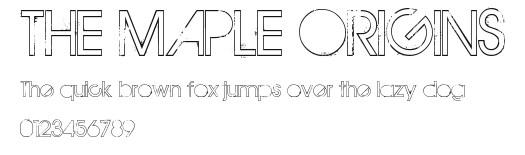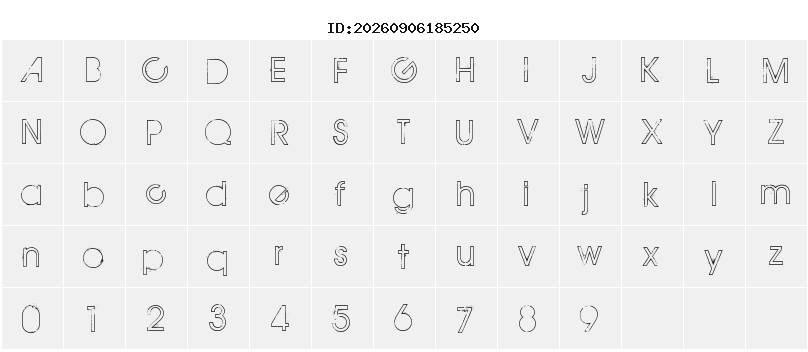
THE MAPLE ORIGINS Preview
• Font Name: THE MAPLE ORIGINS
• Full Font Name: THE MAPLE ORIGINS
• Version: Version 1.00 June 9, 2007, initial release
About THE MAPLE ORIGINS.ttf
THE MAPLE ORIGINS.ttf is a modern, elegant sans-serif font designed for ultimate readability and visual harmony. Perfect for branding, headlines, web design, and print materials.